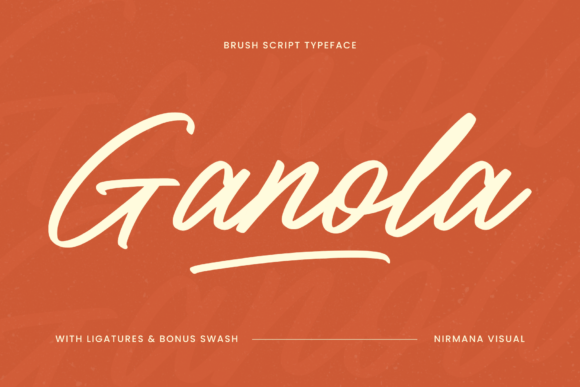
Ganola Font: Elevate Your Brand with a Timeless, Hand-Lettered Script
Ganola font is a sophisticated hand-lettering typeface that brings a vintage script style to the forefront, characterized by its stylish, flowing brush lines. This elegant yet bold font is specifically designed for logo and branding applications, making it an ideal choice for businesses aiming to achieve a classic yet modern aesthetic. With its fluid strokes and retro charm, Ganola enhances brand identity by adding a touch of warmth and personality, essential for standing out in today’s competitive market.
The Essence of Ganola Font
Ganola is more than just a font; it’s a statement piece that can elevate your brand’s visual identity. Its design is rooted in traditional hand-lettering techniques, offering a unique blend of vintage appeal and modern sophistication. The fluid, brush-like strokes of Ganola convey a sense of elegance and refinement, making it perfect for businesses that want to project a high-end image.
Key Features of Ganola Font
- Vintage Script Style: Ganola’s design is inspired by classic script fonts, offering a timeless appeal that works well for luxury brands, fashion labels, and businesses in the creative industry.
- Hand-Lettered Authenticity: The font’s handcrafted nature gives it a unique personality, making it stand out from more conventional typefaces.
- Elegant yet Bold: Ganola strikes the perfect balance between elegance and boldness, making it versatile for various applications, from packaging and signage to merchandise.
- Flowing Brush Lines: The font’s fluid strokes add a dynamic and artistic touch to any design, enhancing its visual appeal.
- Retro Charm: Ganola’s retro elements give it a nostalgic feel, which can be particularly effective for brands looking to evoke a sense of heritage or tradition.
Applications of Ganola Font
Ganola’s versatility makes it suitable for a wide range of applications. Here are some of the most effective uses of this sophisticated font:
- Logo Design: Ganola’s elegant and bold characteristics make it an excellent choice for logos, especially for businesses in the luxury, fashion, and creative sectors.
- Branding: The font’s ability to convey sophistication and personality makes it ideal for branding applications, helping businesses to establish a strong and memorable identity.
- Packaging: Ganola adds a touch of elegance to product packaging, making it stand out on store shelves and enhancing the overall unboxing experience.
- Signage: The font’s bold and flowing strokes ensure that signage is eye-catching and easy to read, whether for storefronts, events, or exhibitions.
- Merchandise: Ganola brings a timeless and artistic touch to merchandise, such as T-shirts, mugs, and stationery, making it a popular choice for brand promotion.
Why Choose Ganola Font?
In a crowded marketplace, establishing a strong brand identity is crucial. Ganola font offers several advantages that make it an attractive choice for businesses:
- Unique Aesthetic: Ganola’s hand-lettered design and vintage script style provide a unique aesthetic that sets it apart from more generic fonts.
- Versatility: The font’s elegance and boldness make it versatile for various applications, from digital media to print materials.
- Emotional Connection: Ganola’s retro charm and handcrafted authenticity help create an emotional connection with audiences, enhancing brand loyalty.
- Timeless Appeal: Unlike trendy fonts that may quickly become outdated, Ganola’s classic design ensures it remains relevant for years to come.
How to Use Ganola Font Effectively
To maximize the impact of Ganola font, consider the following tips:
- Pair with Complementary Fonts: Combine Ganola with simpler, sans-serif fonts for contrast and readability, especially in digital applications.
- Adjust Letter Spacing: Optimize letter spacing to maintain the flow and elegance of the font, particularly in longer texts.
- Use in Headlines and Titles: Ganola is best used in headlines and titles where its bold and flowing strokes can shine, drawing attention and conveying sophistication.
- Experiment with Colors: While Ganola works well in traditional black and white, experimenting with colors can enhance its vintage charm and make it more eye-catching.
Ganola font is a powerful tool for businesses looking to elevate their brand identity with a timeless, hand-lettered script. Its elegant yet bold design, combined with its vintage appeal and retro charm, makes it perfect for a variety of applications, from logos and branding to packaging and merchandise. By incorporating Ganola into your design strategy, you can create a lasting impression and establish a strong, memorable brand presence.